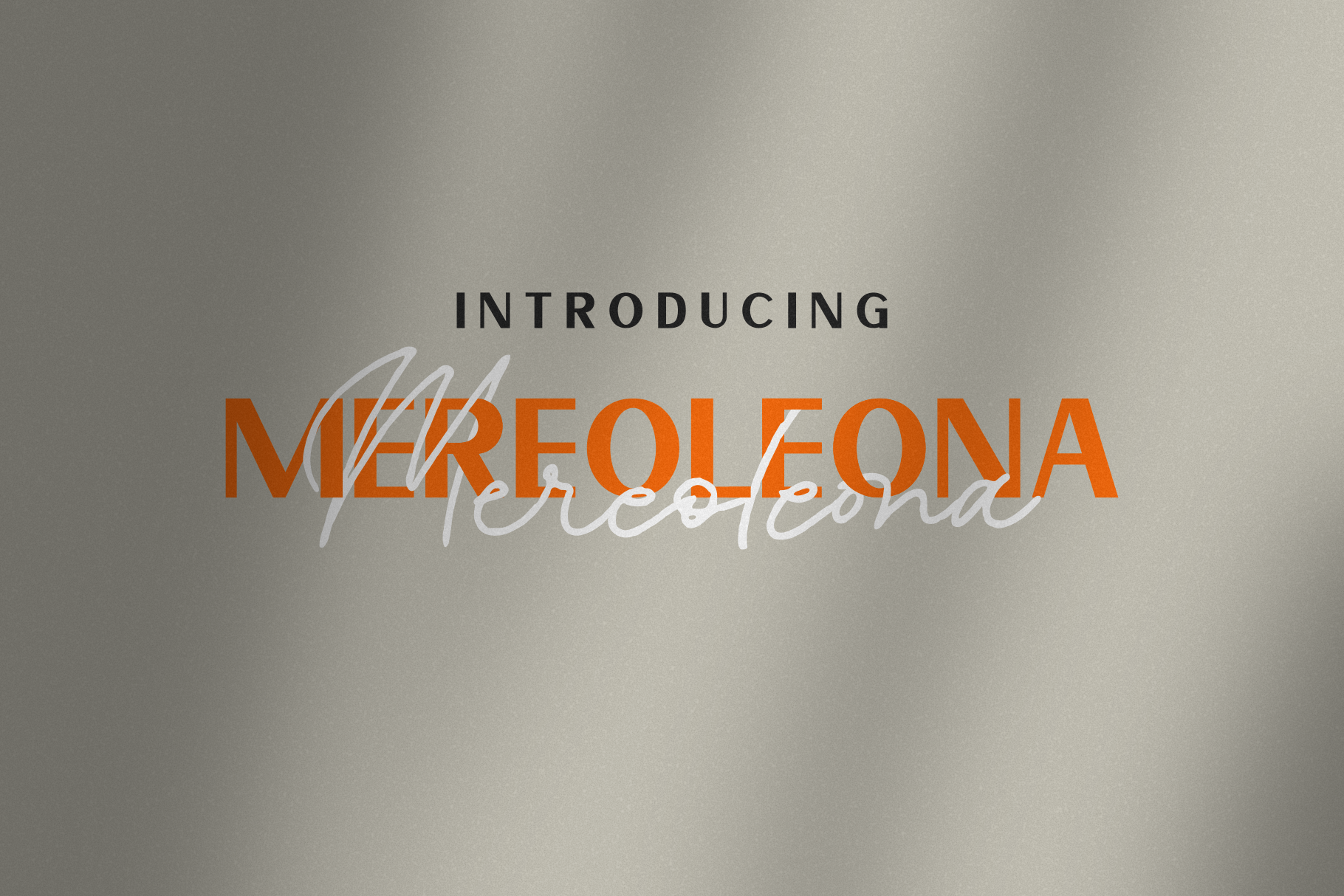
Mereoleona | Font Duo
The Mereoleona Font Duo combines a san serif and a script font. Together, they create a uniquely modern style, that effortlessly elevates any design project!